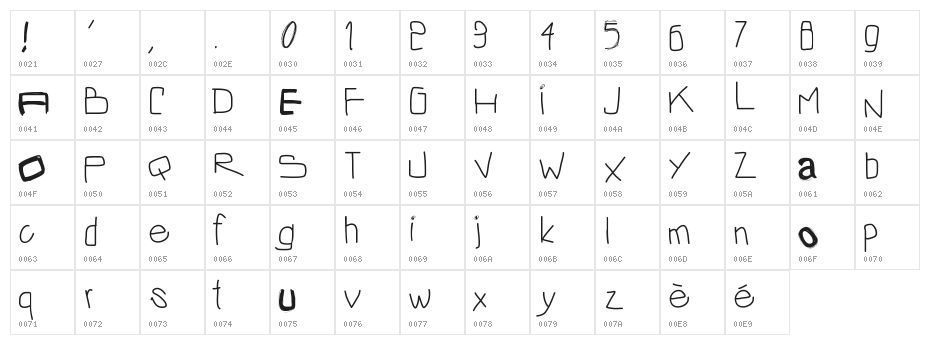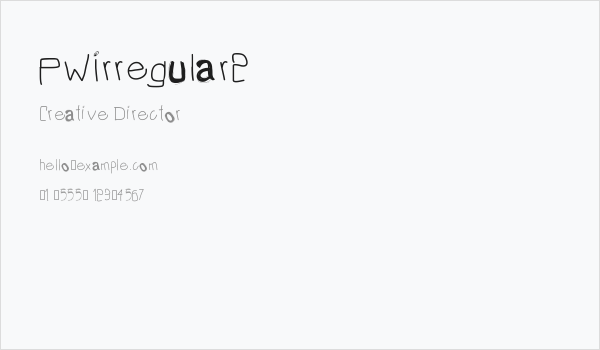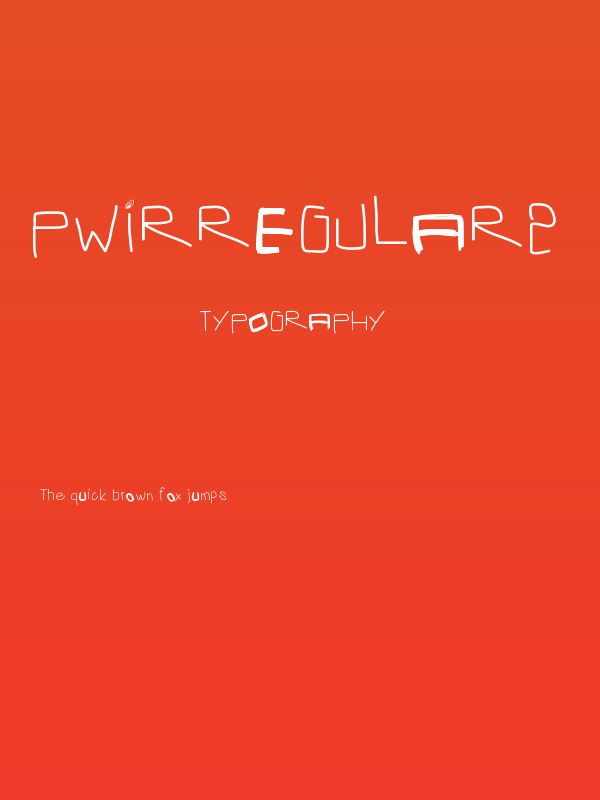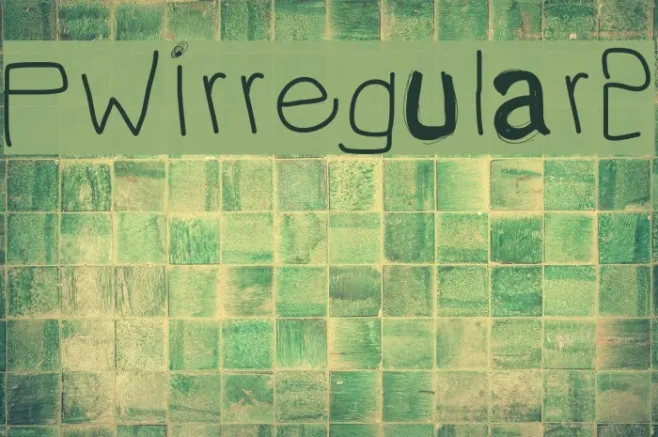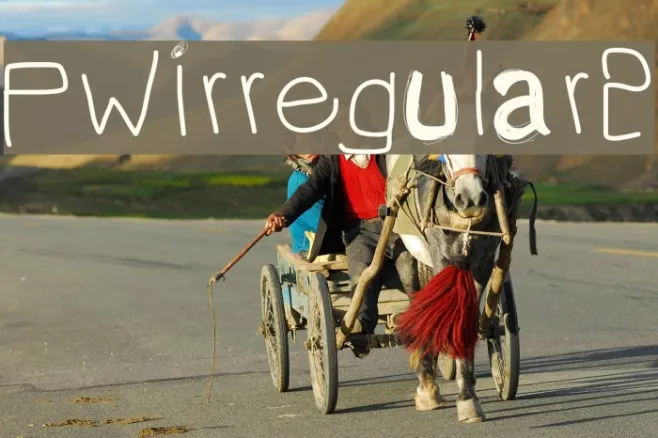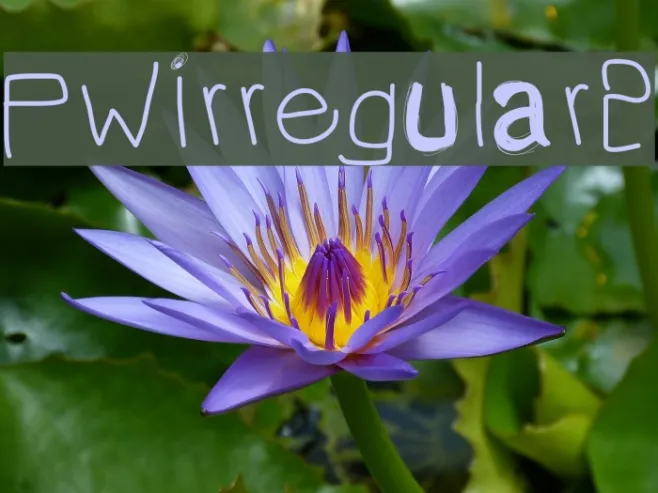
PWIrregular2 Font
PWIrregular2 Description
This font features an irregular, hand-drawn style with a playful and quirky appearance. The uppercase letters are bold and uneven, with varying stroke widths that give a dynamic and energetic feel. The lowercase letters maintain a similar irregularity, adding to the whimsical nature of the design. Numbers and special characters follow the same pattern, ensuring consistency throughout. The overall look is informal and artistic, making it suitable for creative projects that require a personal touch.
| Proposed Projects | Ideal for children's books, creative posters, artistic branding, and informal invitations. |